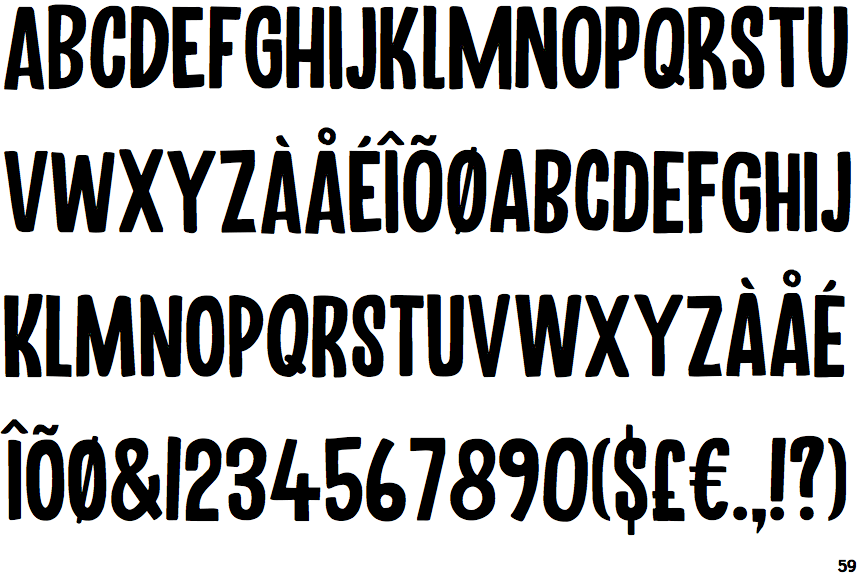
Troutbeck Font . Troutbeck is a free font for personal use created by hanoded. Free download of troutbeck demo font. Troutbeck is a fancy type. Troutbeck font is a pleasing, handmade all caps font. Troutbeck font download is available free from fontget. If you are going to use it commercially, buy the full version, which comes. It is free for personal use only. If you ever make it there, you will discover that the. If you ever make it there, you will. Troutbeck is a small, old fashioned village on the narrow and hilly road from windermere to penrith. Troutbeck is a small, old fashioned village on the narrow and hilly road from windermere to penrith. This is the demo, bare bones, version of troutbeck. It would look great on product packaging or book covers, or maybe postcards. This is the demo, bare bones, version of troutbeck. It is free for personal use only.
Free download of troutbeck demo font. If you ever make it there, you will discover that the area is a walhalla for hikers! Troutbeck is a small, old fashioned village on the narrow and hilly road from windermere to penrith. Troutbeck is a fancy type. Troutbeck font is a pleasing,. This is the demo, bare bones, version of troutbeck. It is free for personal use only. If you ever make it there, you will. Troutbeck is a small, old fashioned village on the narrow and hilly road from windermere to penrith. If you ever make it there, you will discover that the.
Troutbeck Font Troutbeck font is a pleasing, handmade all caps font. Troutbeck is a free font for personal use created by hanoded. If you ever make it there, you will. It is free for personal use only. Troutbeck font is a pleasing,. If you are going to use it commercially, buy the full. This is the demo, bare bones, version of troutbeck. If you ever make it there, you will discover that the. Troutbeck is a fancy type. Troutbeck is a small, old fashioned village on the narrow and hilly road from windermere to penrith. If you are going to use it commercially, buy the full version, which comes. Troutbeck is a small, old fashioned village on the narrow and hilly road from windermere to penrith. This is the demo, bare bones, version of troutbeck. It would look great on product packaging or book covers, or maybe postcards. Free download of troutbeck demo font. If you ever make it there, you will discover that the area is a walhalla for hikers!
Retro fonts to take your design to the next level Graphic design Troutbeck Font Troutbeck is a fancy type. Troutbeck is a small, old fashioned village on the narrow and hilly road from windermere to penrith. If you are going to use it commercially, buy the full version, which comes. This is the demo, bare bones, version of troutbeck. It would look great on product packaging or book covers, or maybe postcards. If you. Troutbeck Font.
Troutbeck Font Troutbeck font download is available free from fontget. Troutbeck font is a pleasing, handmade all caps font. Troutbeck is a small, old fashioned village on the narrow and hilly road from windermere to penrith. If you ever make it there, you will. Free download of troutbeck demo font. Troutbeck is a free font for personal use created by hanoded. Troutbeck. Troutbeck Font.
Troutbeck DEMO font Troutbeck Font Troutbeck is a fancy type. Troutbeck is a small, old fashioned village on the narrow and hilly road from windermere to penrith. Troutbeck is a small, old fashioned village on the narrow and hilly road from windermere to penrith. If you are going to use it commercially, buy the full. Troutbeck font is a pleasing,. If you ever make it. Troutbeck Font.
Identifont Troutbeck Font Troutbeck font is a pleasing, handmade all caps font. It would look great on product packaging or book covers, or maybe postcards. Free download of troutbeck demo font. If you are going to use it commercially, buy the full. Troutbeck is a small, old fashioned village on the narrow and hilly road from windermere to penrith. If you ever make. Troutbeck Font.
Bronkeyフォント ダウンロード Troutbeck Font Troutbeck font is a pleasing, handmade all caps font. Free download of troutbeck demo font. Troutbeck font download is available free from fontget. If you are going to use it commercially, buy the full version, which comes. This is the demo, bare bones, version of troutbeck. It is free for personal use only. If you ever make it there, you. Troutbeck Font.
Download Fresh Waters By Xerographer Fonts Free Font Troutbeck Font This is the demo, bare bones, version of troutbeck. It is free for personal use only. Troutbeck font download is available free from fontget. If you are going to use it commercially, buy the full version, which comes. This is the demo, bare bones, version of troutbeck. Troutbeck font is a pleasing,. If you ever make it there, you will. Troutbeck Font.